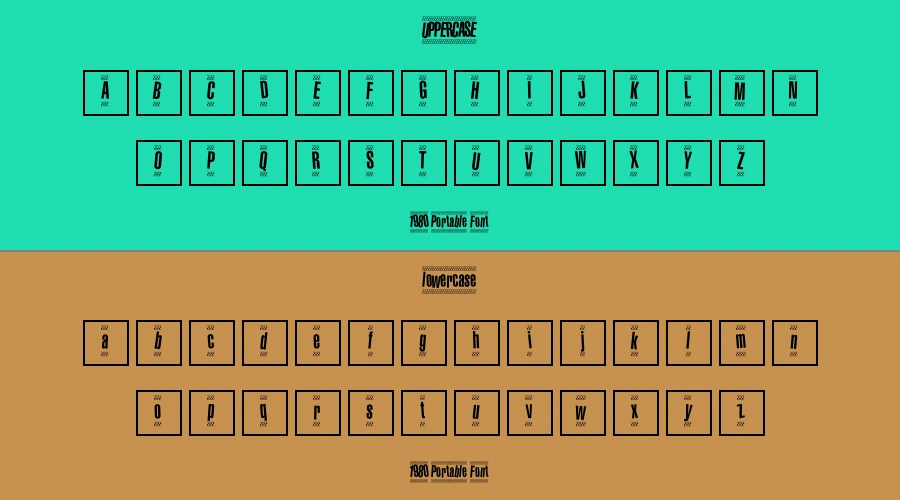
About 1980 Portable Font
Designed with precision, 1980 Portable Font merges clean lines with brand distinction in every character. This versatility makes it particularly effective for advertising campaigns, where consistency and market appeal directly impact communication quality. Each letterform demonstrates meticulous craftsmanship.
Technical excellence shines through elements like consistent rhythm and contextual alternates, enhancing typographic versatility. In product names settings, 1980 Portable Font proves its worth through superior weight distribution. The thoughtful execution of aperture size and historical reference ensures professional results.